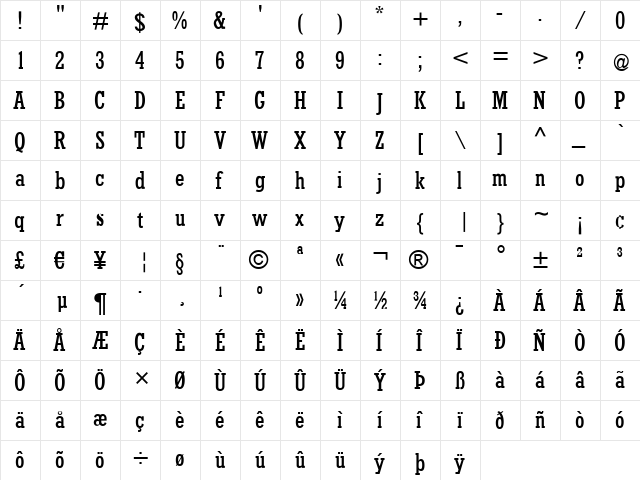
RockyXCond Regular
Design Context for RockyXCond Typeface
RockyXCond offers clean, dependable letterforms without strong stylistic allegiance, making it a practical choice for designers who need flexibility. The condensed width makes it efficient for tight spaces without sacrificing legibility.
Pro Tip: Pair RockyXCond with a font of contrasting weight or personality to build a more expressive typographic hierarchy.